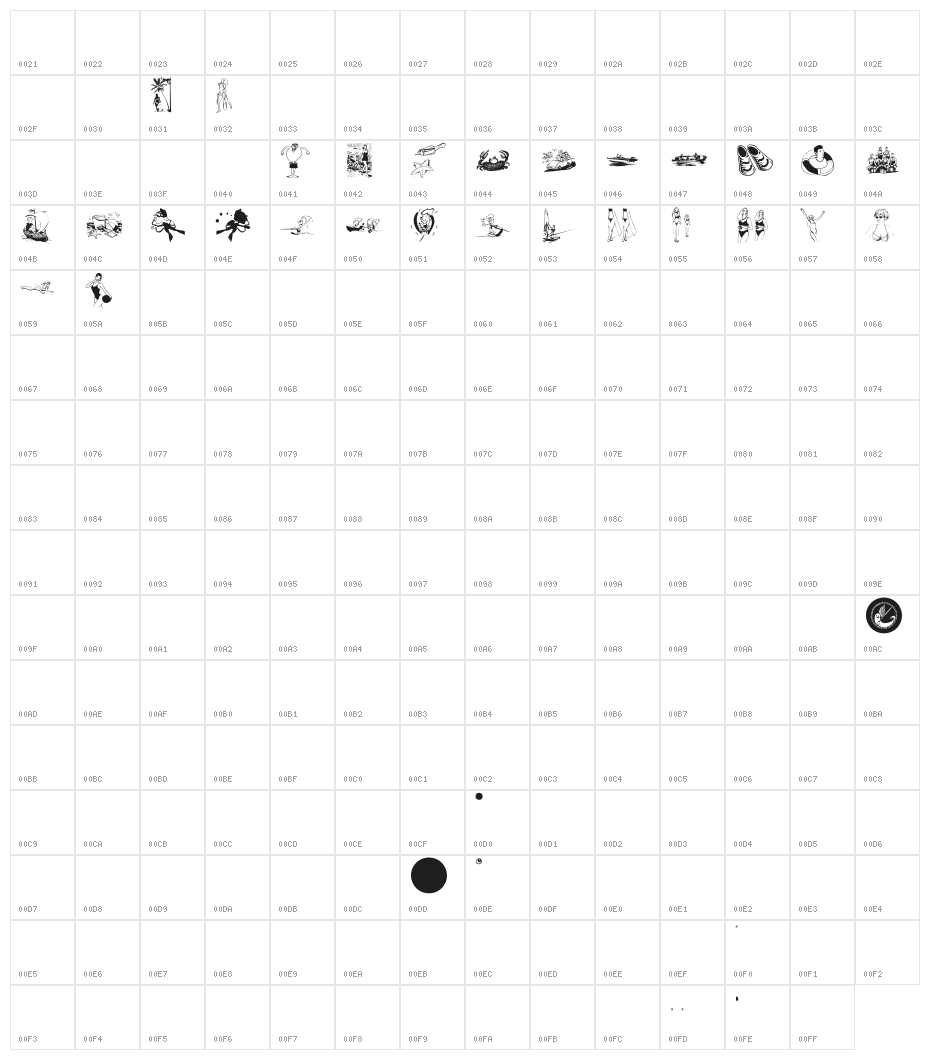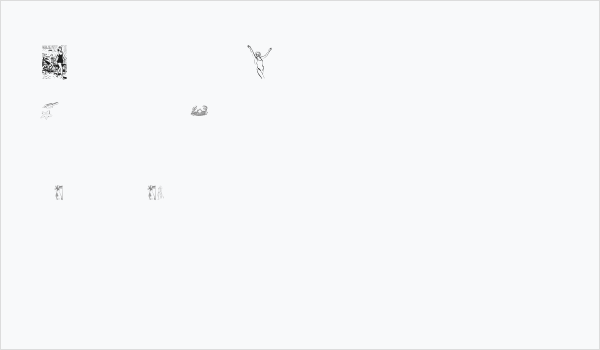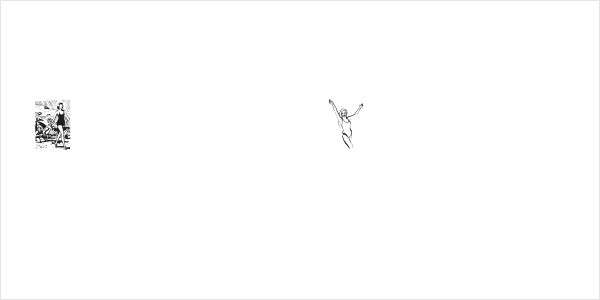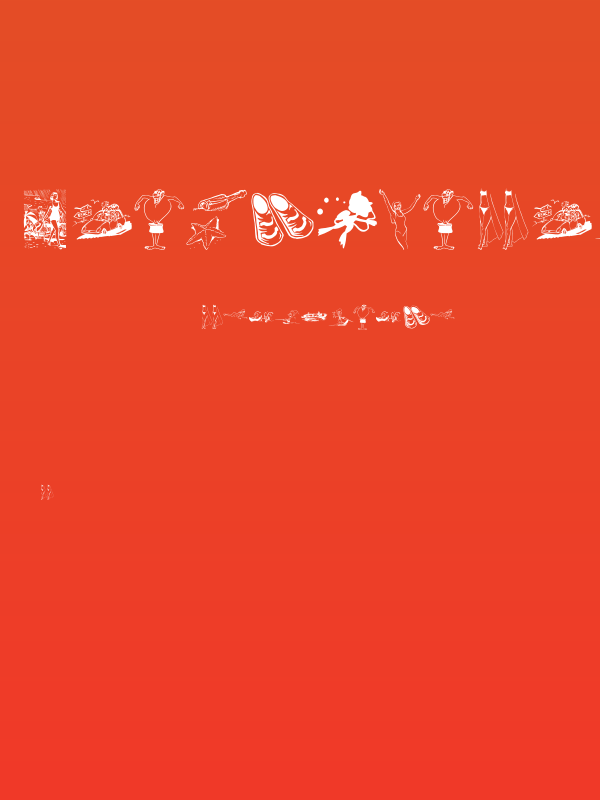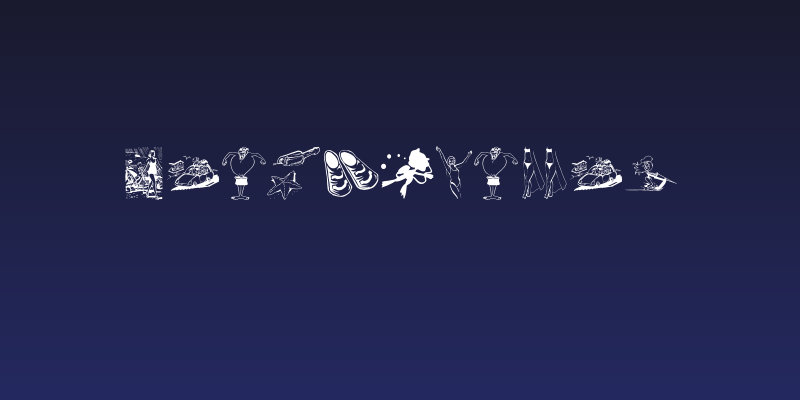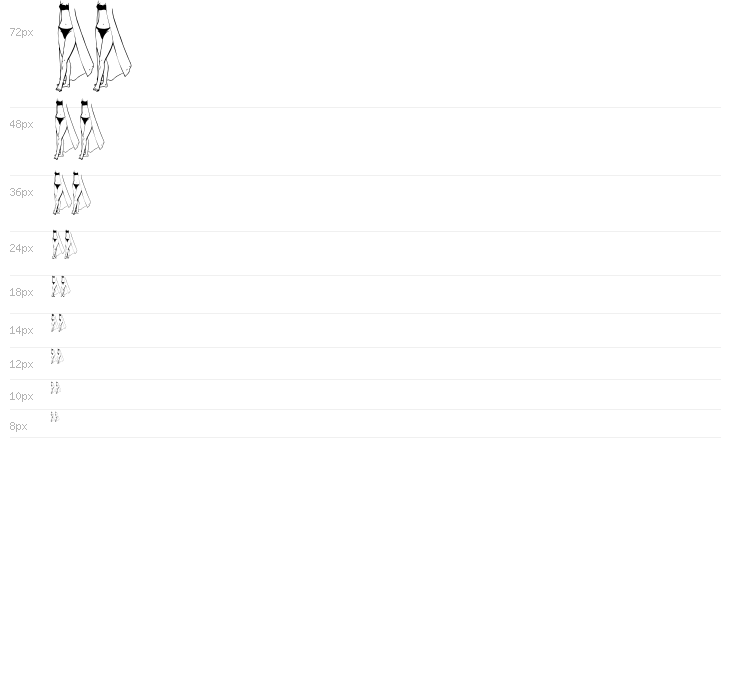
BeachnWater Font
BeachnWater Description
A collection of playful, detailed beach and water-themed illustrations, including people, animals, and objects related to seaside activities. The glyphs are highly pictorial and decorative, with a hand-drawn, cartoon-like style.
| Overall Style | Decorative, Playful, Thematic |
| Use Case | Decorative elements, Themed graphics, Event materials |
| Proposed Projects | Party invitations, summer event flyers, childrenΓ’β¬β’s activity sheets, themed scrapbooks, posters. |